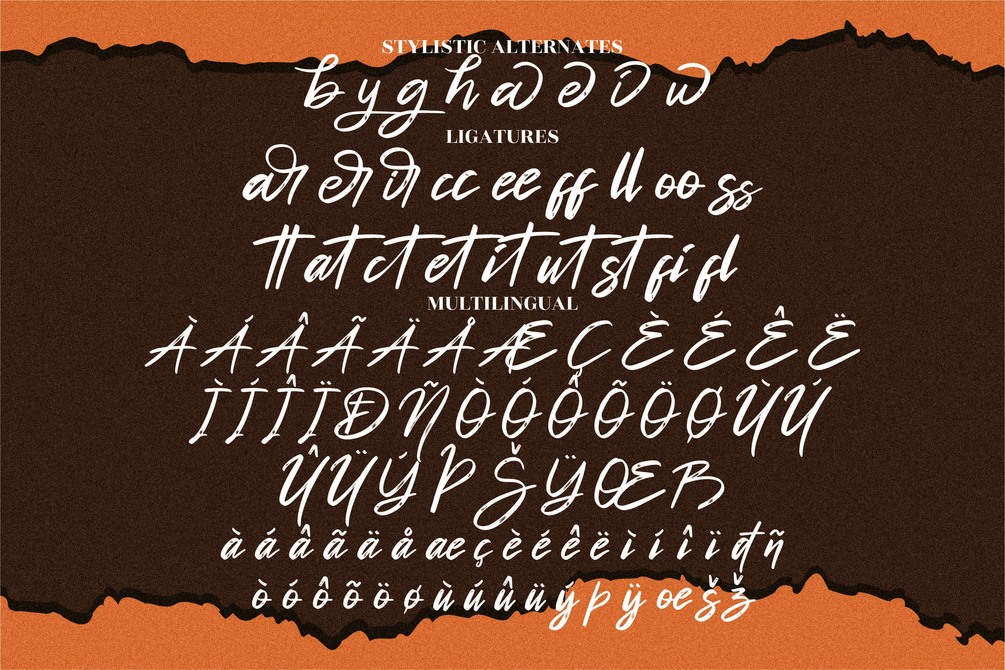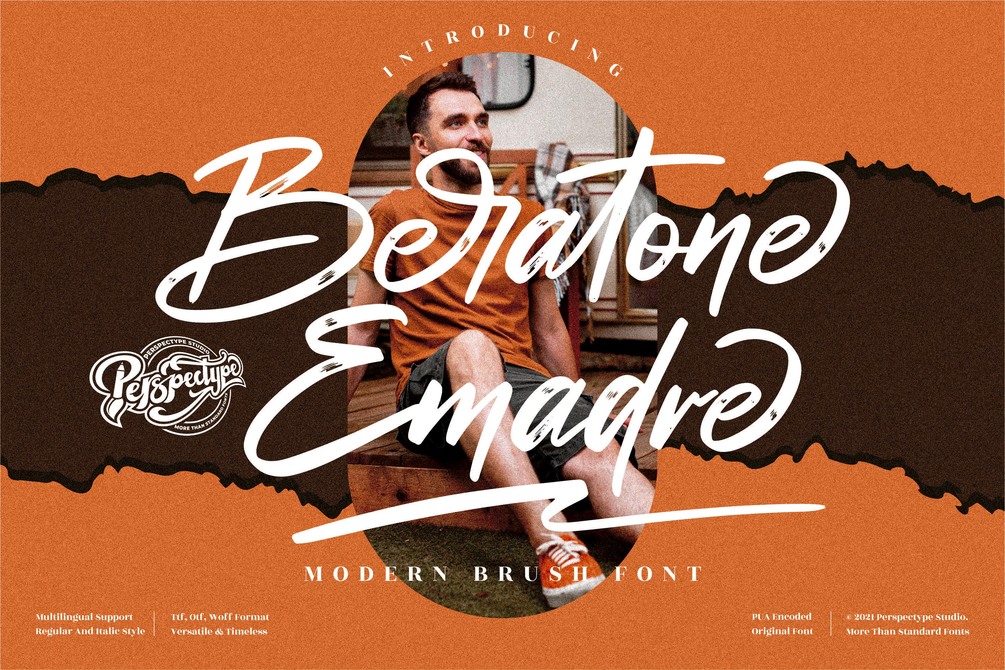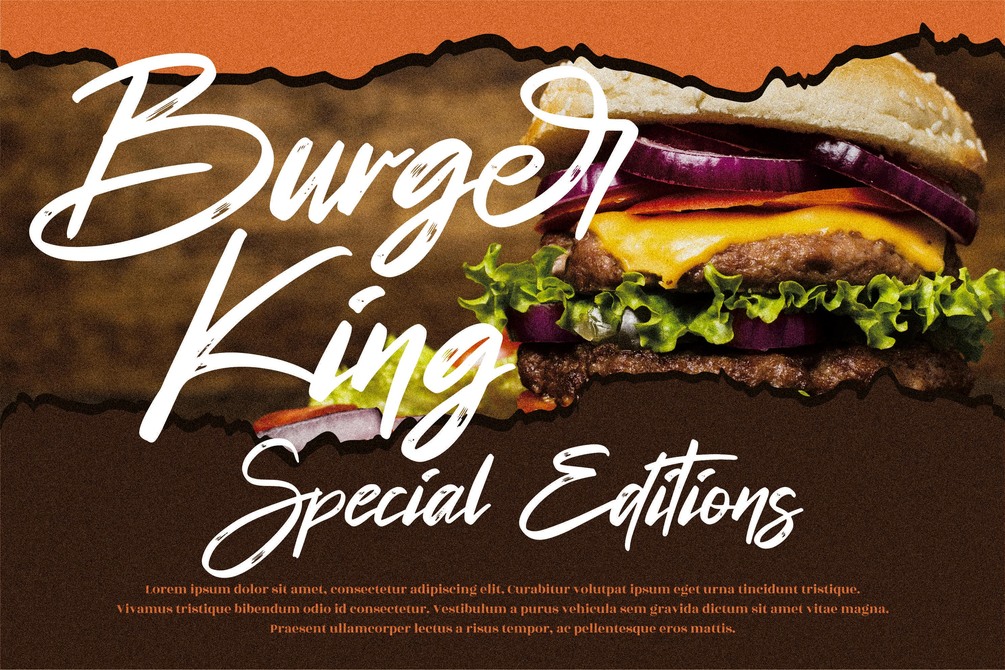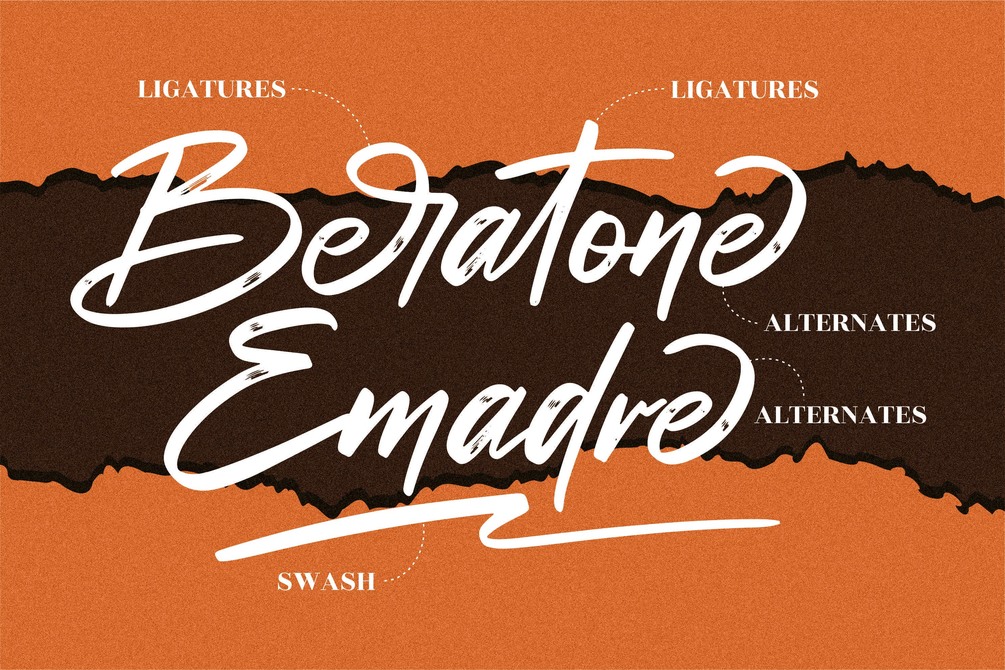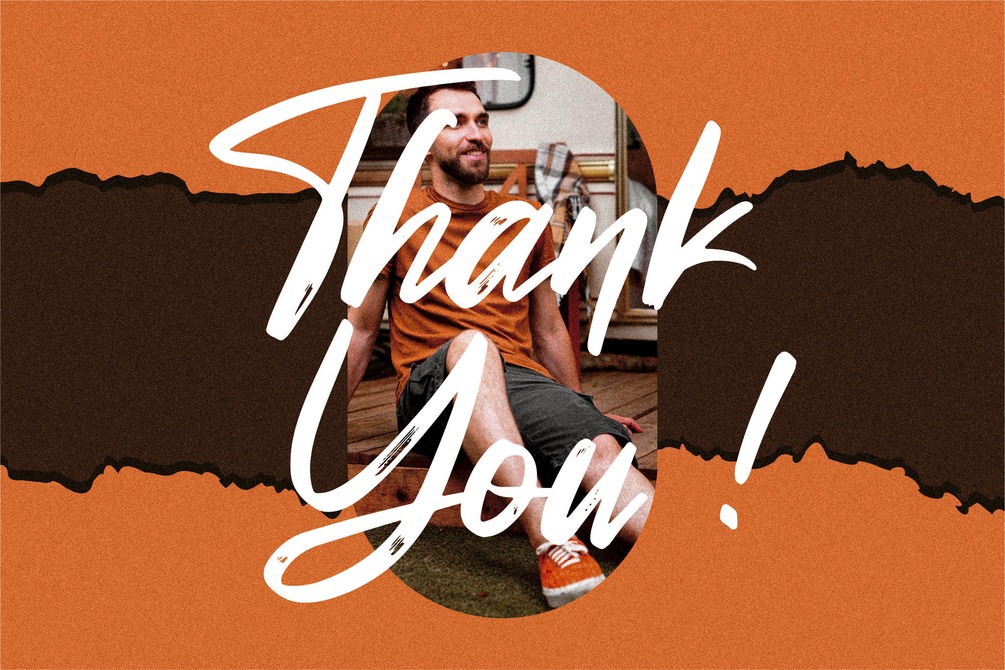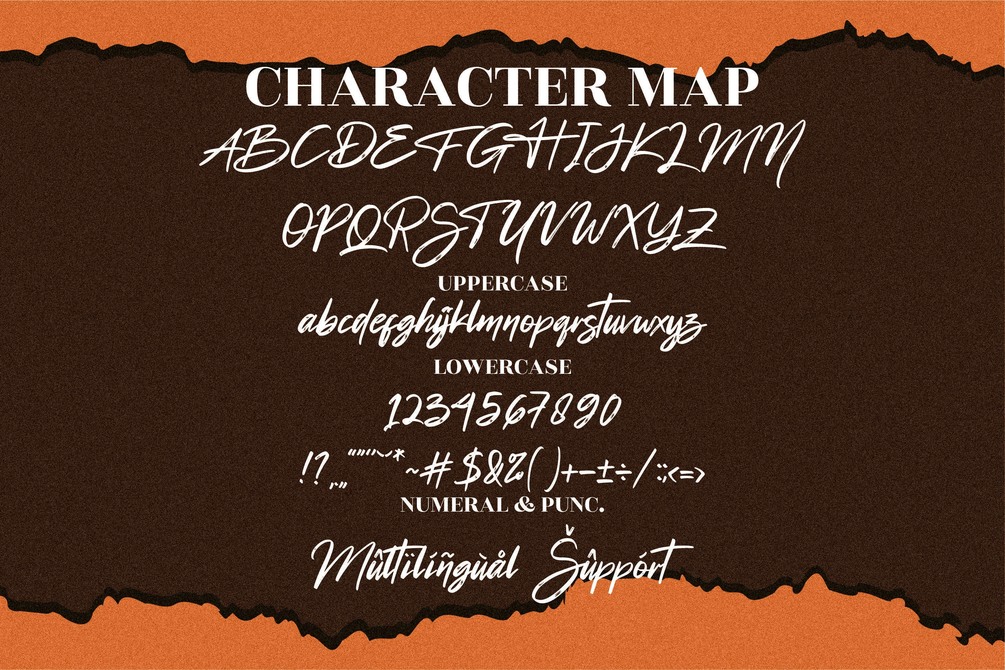
Beratone Emadre - Modern Brush Font
Beratone Emadre - Modern Brush Font, from Perspectype Studio, is a premium brush font, suitable for any projects such as: logos, branding projects, homeware designs, product packaging, mugs, quotes, posters, shopping bags, t-shirts, book covers, name card, invitation cards, greeting cards, label, photography, watermark, special events, and all your other luxury projects that need a premium brush taste.